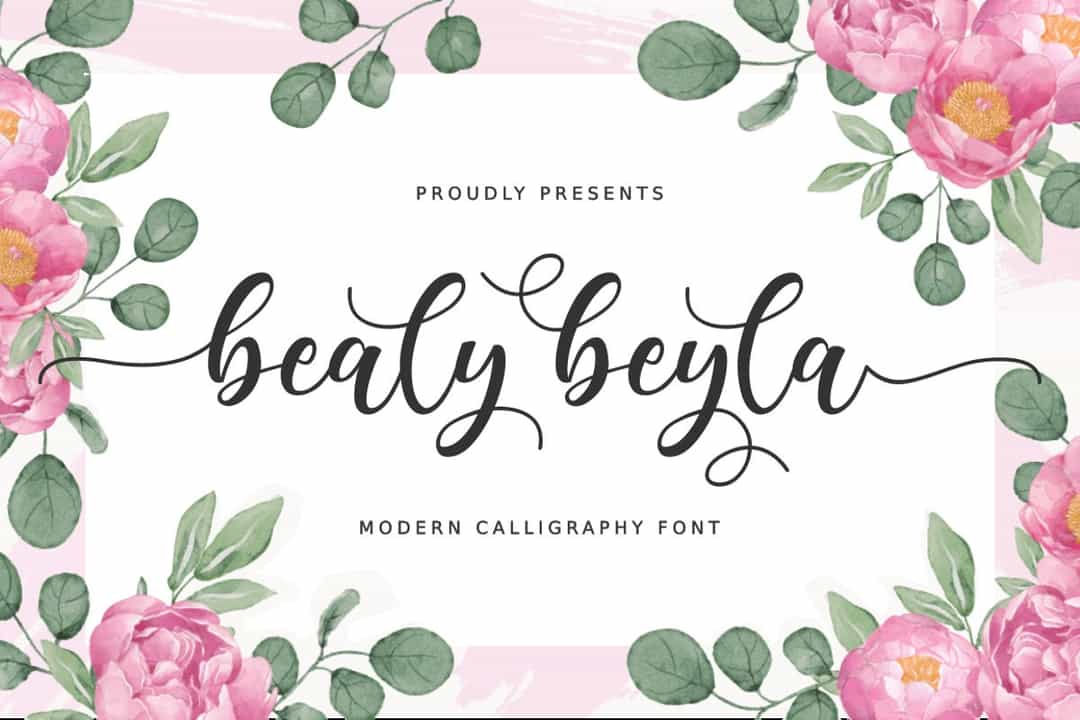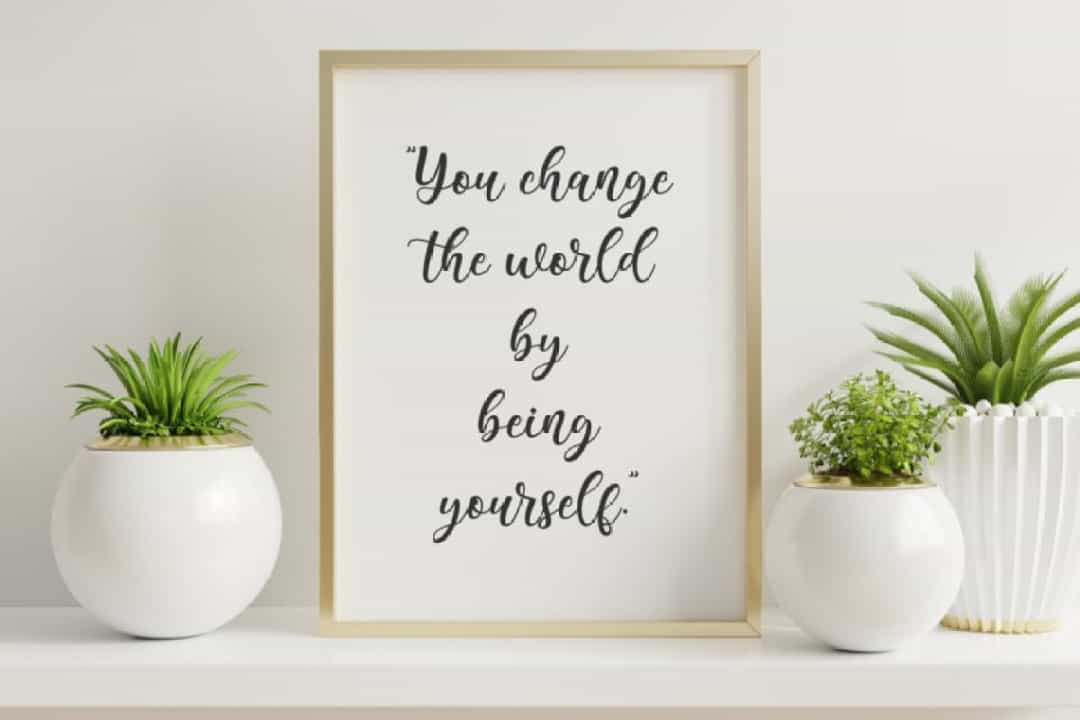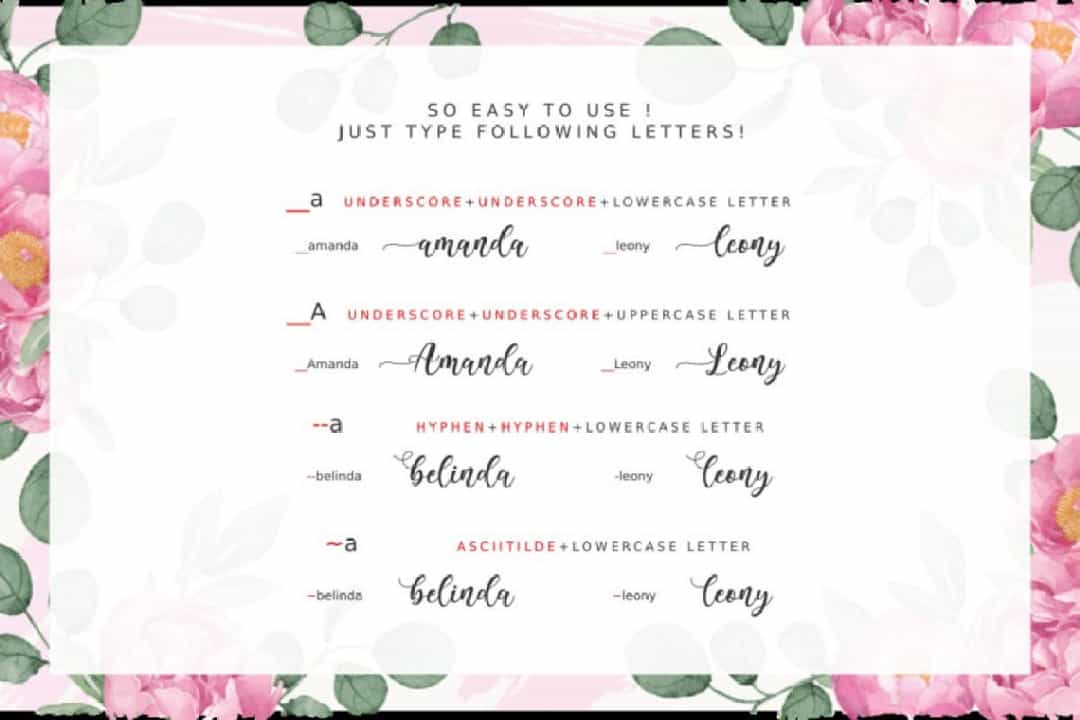
Bealy Beyla is a beautiful, elegant, and flexible calligraphy font with PUA encoding for the quick accessibility of the font’s swashes and glyphs! It has its own baseline with the clean and elegant lines, beautiful glyphs and also the exceptional set of the alternative glyphs for the perfect calligraphic font!